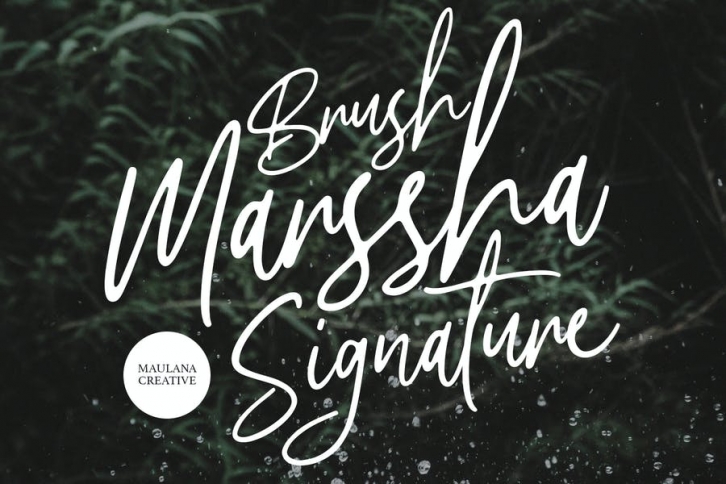
Give your designs an authentic handcrafted feel. "Marssha" is perfectly suited to signature, stationery, logo, typography quotes, magazine or book cover, website header, clothing, branding, packaging design and more. Included Ligatures.